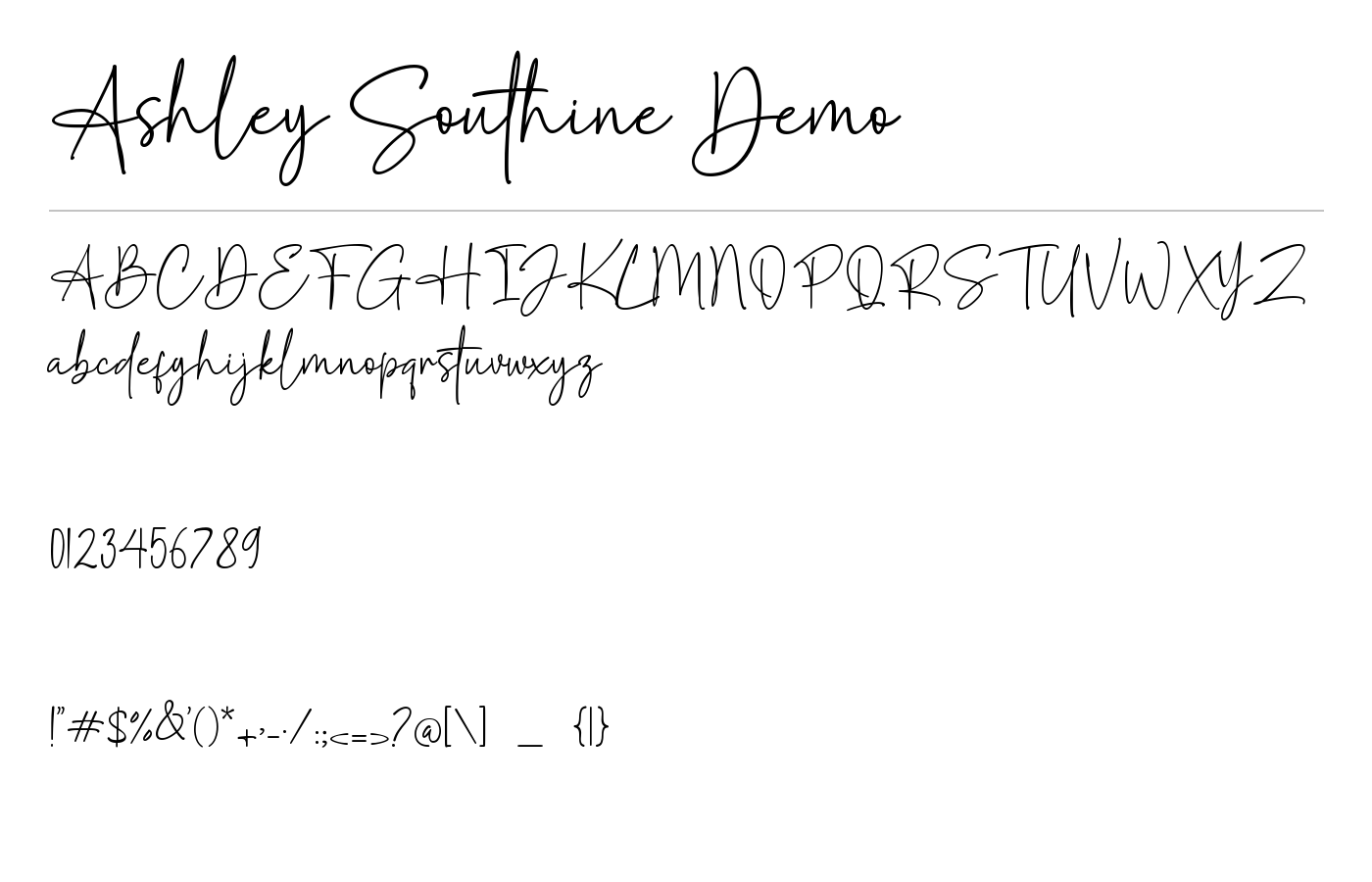
Ashley Southine Demo is a delicate, handwritten script font with a light and airy feel, featuring thin, flowing strokes and a casual yet elegant style. Its tall, narrow letterforms and playful curves make it perfect for creative projects that require a personal, artistic touch, such as invitations, branding, and social media graphics. This font adds a sense of warmth and charm without sacrificing readability, ideal for designs that seek a friendly and sophisticated vibe.
Ashley Southine Demo Font
About Ashley Southine Demo Font
| Font family | Ashley Southine Demo Font |
| Designer | (MJB Letters). 2023. (Muhammad Mujibulloh) |